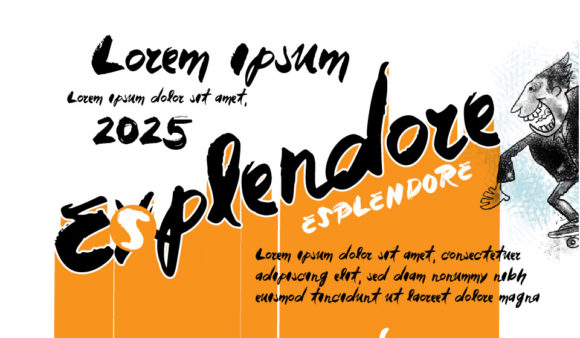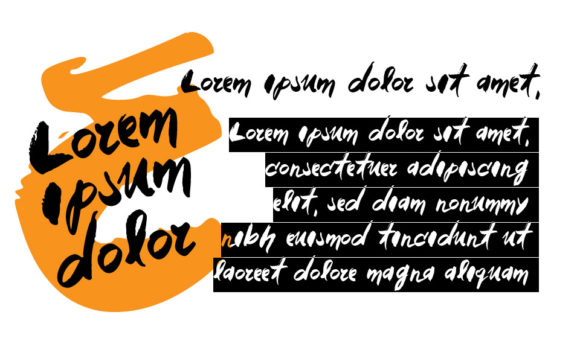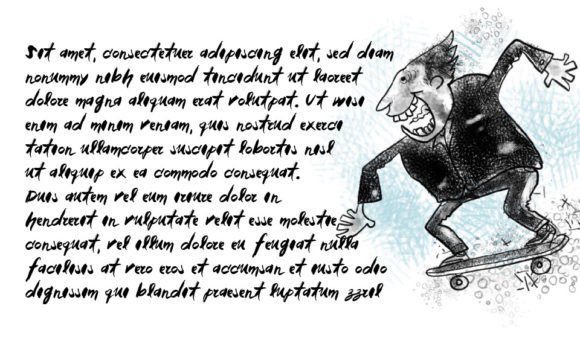
Espledore Font
About Espledore Font
Espledore embodies fun, quirkiness and authenticity. This script font is guaranteed to add an authentic touch to your next design.